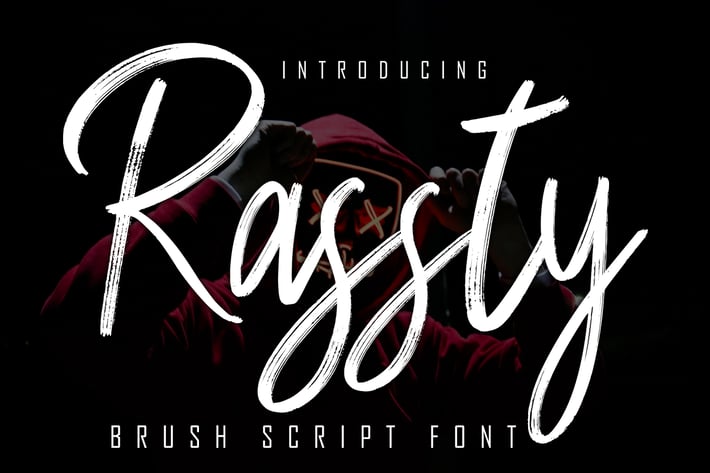
Rassty Brush Script Font
Rassty is a natural handmade textured brush text font with an irregular base line. Suitable for use in title design. Such as clothing, covers, book titles, films, quotes, branding, logos, greeting cards, t-shirts, packaging designs, posters, and others. Rassty includes the full set of upper and lower case letters, as well as multi-language support, numbers, punctuation, ligature
more than 200+ of glyphs\
Ligature\
Basic Latin Language Support (AÀÁÂÃÄÅCÇDÐEÈÉÊËIÌÍÎÏÑOØÒÓÔÕÖUÙÜÚÛWYÝŸÆß )